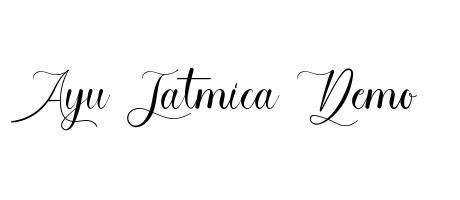
Ayu Jatmica Demo
Ayu Jatmica Demo: A swirling script, elegant and fluid, with a touch of whimsical charm. Its delicate curves and graceful ascenders create a romantic and sophisticated feel, perfect for invitations, logos, or any project needing a touch of understated luxury. The letters dance across the page, light and airy yet undeniably stylish.